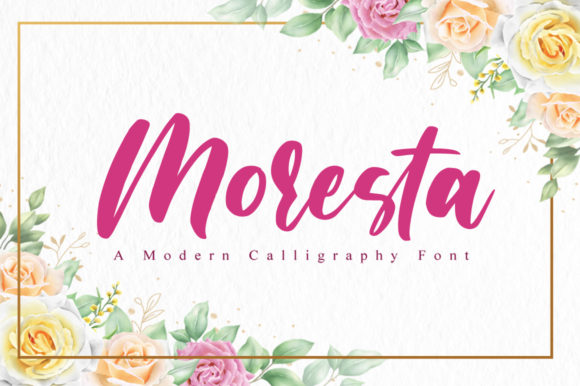
Moresta Font
Discover Moresta, the radiant script font that will ignite your designs with a touch of elegance and sophistication! Crafted by the talented FatmaStudio, Moresta embodies the essence of timeless beauty, perfectly suited for creating captivating wedding monograms that will stand the test of time.
Indulge in the allure of Moresta's meticulously balanced characters, each stroke flowing seamlessly into the next, creating a symphony of visual harmony. Its bold and radiant nature commands attention, making it the perfect choice for adding a touch of drama and flair to your designs.
With Moresta, you'll find endless possibilities to express your creativity. Its versatility extends beyond wedding monograms, making it an ideal companion for invitations, logos, branding, and any project that calls for a touch of sophistication.
Imagine the joy of your clients as they witness their names transformed into stunning monograms, forever etched in the tapestry of their special day. Moresta's radiant presence will elevate their celebration, leaving a lasting impression that they will cherish for years to come.
Don't settle for ordinary fonts that blend into the background. Embrace the captivating allure of Moresta and let your designs shine with a brilliance that will leave an unforgettable mark.